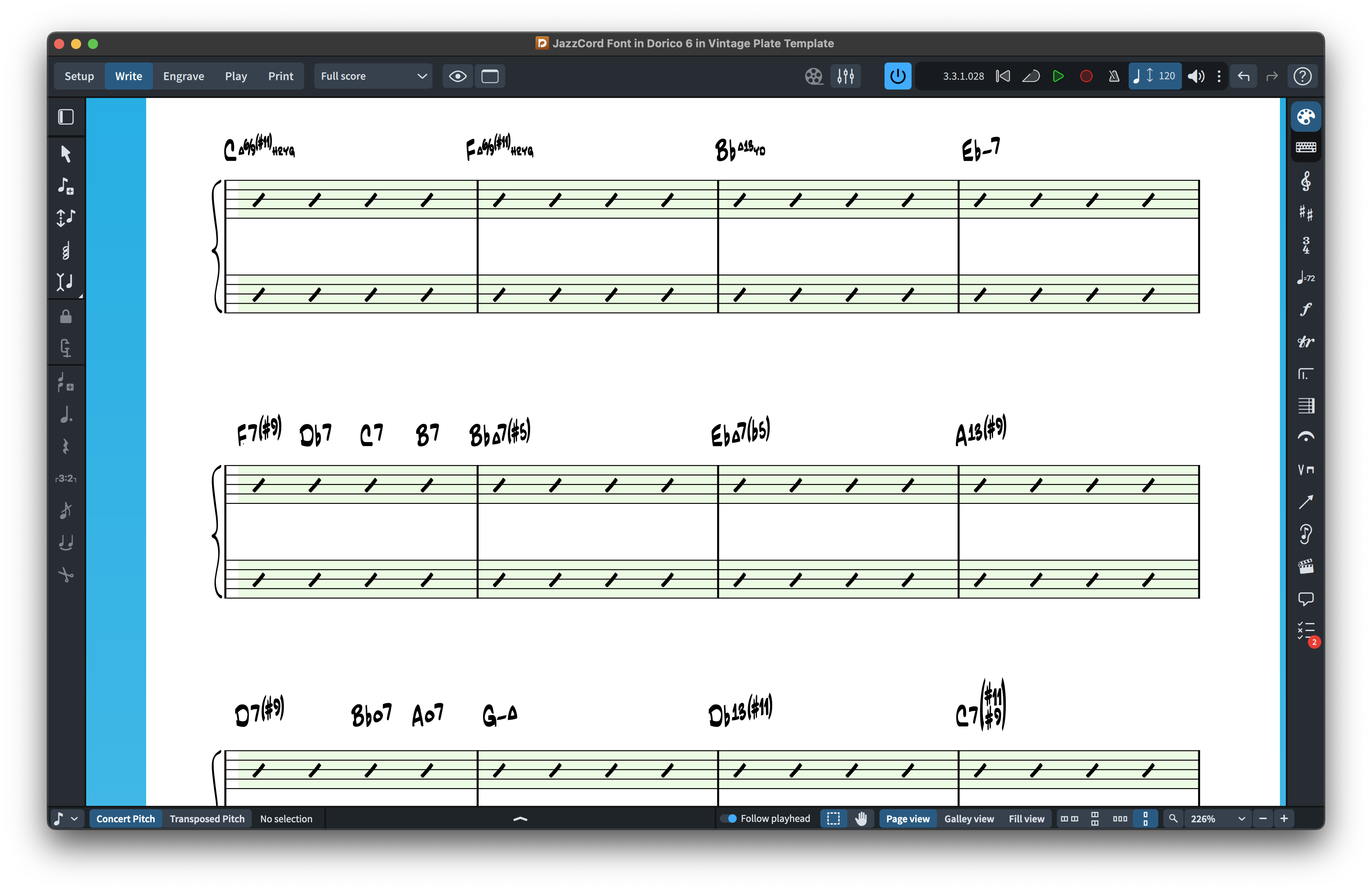
I was trying to replicate the JazzCord chord symbols in Dorico 6 since we can now customize any chord we want, but I couldn’t seem to get the Lydian (Lyd.) and Phrygian (Phryg.) chord symbols to look like in the JazzCord font highlighted below:
Now, when I try to Promote Overridden Chord Symbol Appearance like below:
I get this:
The chord symbol I try to enter is : C Phryg. and C Lyd.
I’ve played around with this a bit, but I don’t think the new editor fully supports editing modal chord symbols. I’m not quite sure about that yet. You can define a different popover command though. Here I’ve defined C whatever
to be C Phrygian
.
You could probably do similarly with JazzCord.
I actually prefer that chord font because I used to use it a while back alongside my own jazz fonts. It’s got all the well-arranged chord qualities and tensions. I think Finale Jazz SmufL font also has those JazzCord symbols. Maybe I should re-customize my doricolib file from scratch again…
I found a quick fix! I selected ‘Modes and scales to lower case’ and now I can use the lowercase range from the JazzCord font.